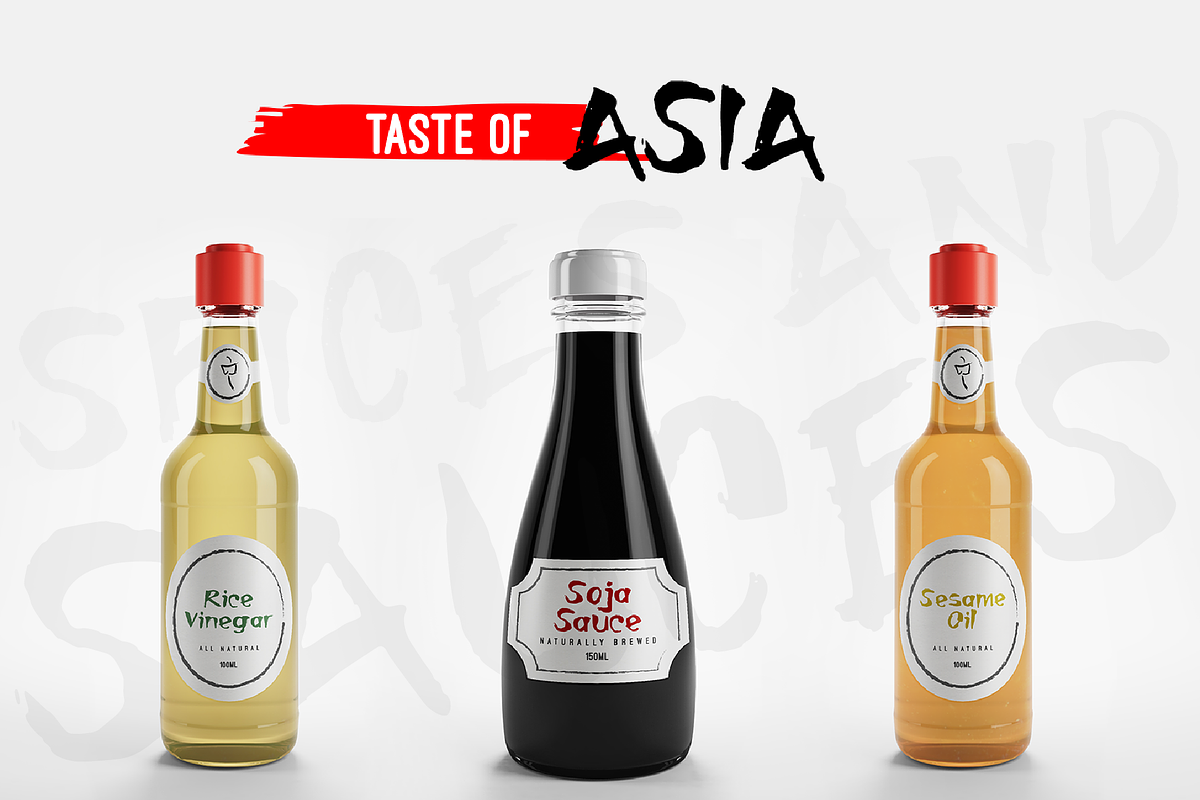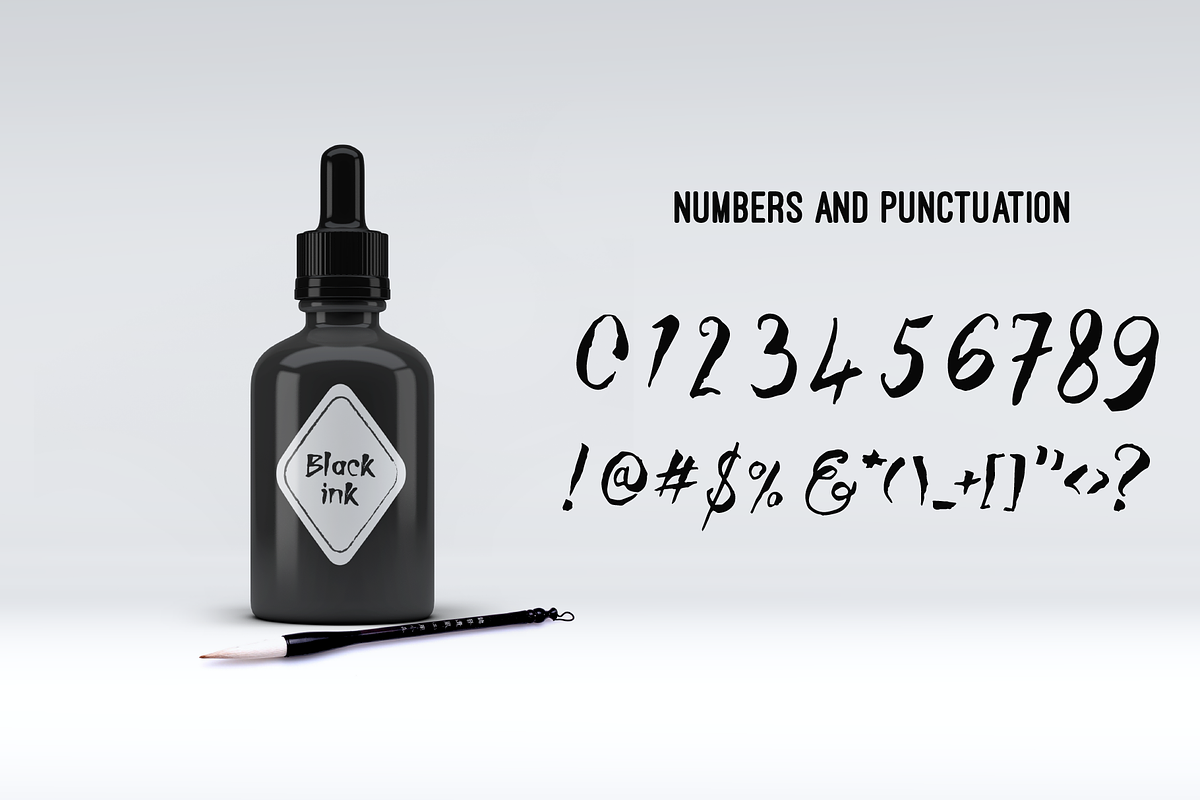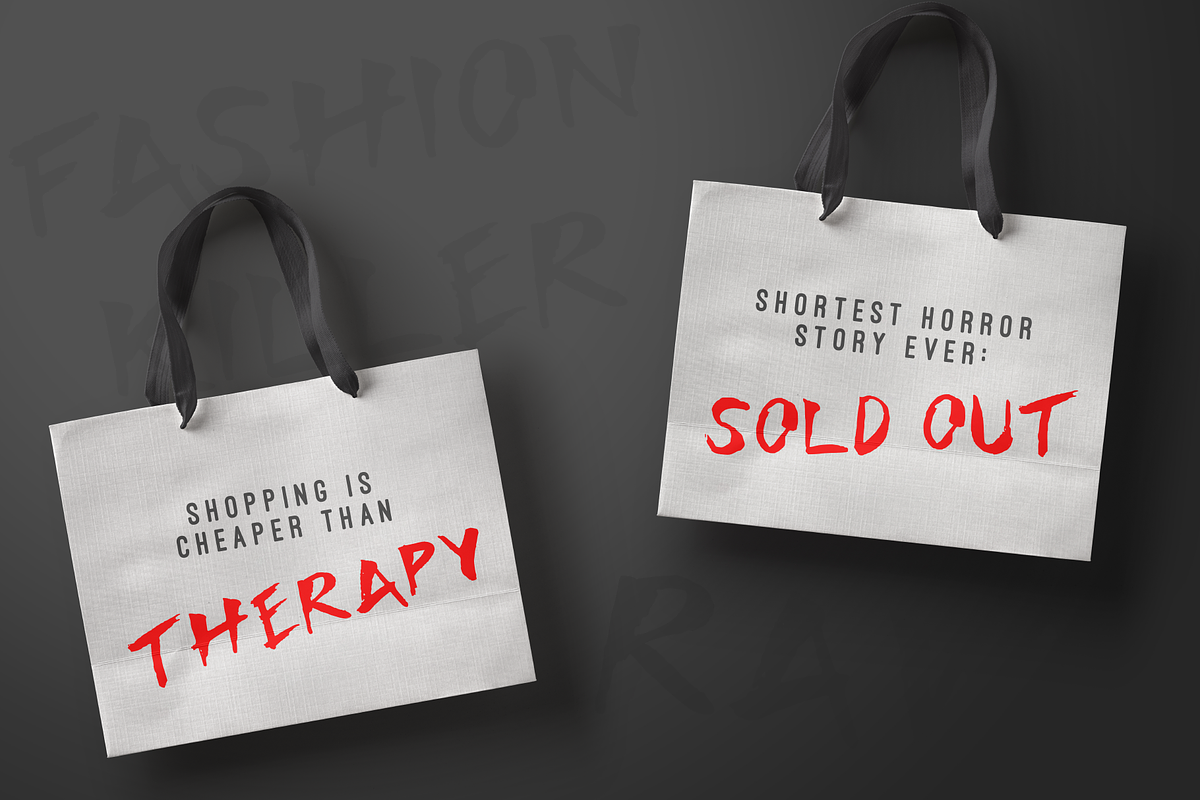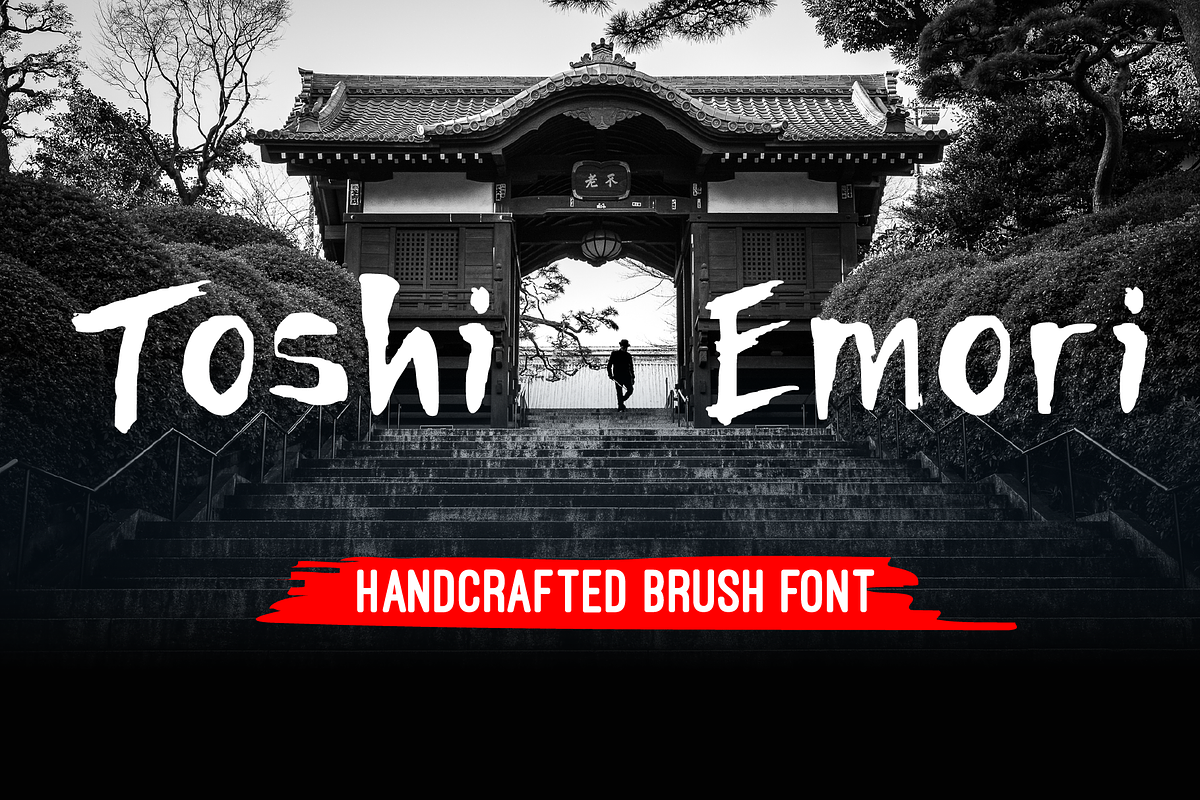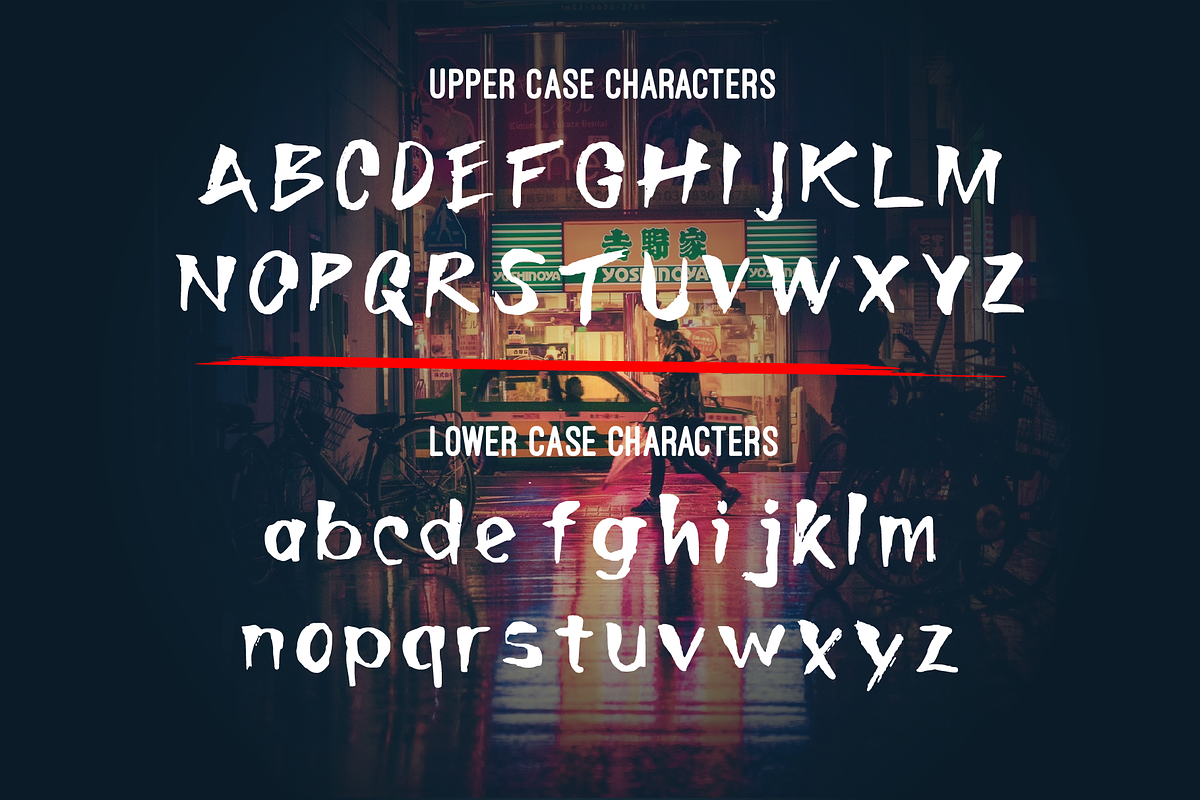
Toshi Emori - Handcrafted Font
A Japanese Inspired Font that replicates the zen spiritual exercise of a brush stroke, each line has a story, an emotion. It is most suitable as a display font, with large headings to impress through it's flaws. It was not meant to be perfect, that's what gives it such a great personality. It is also suitable for quotes, social media, logos, invitations, and other print materials.